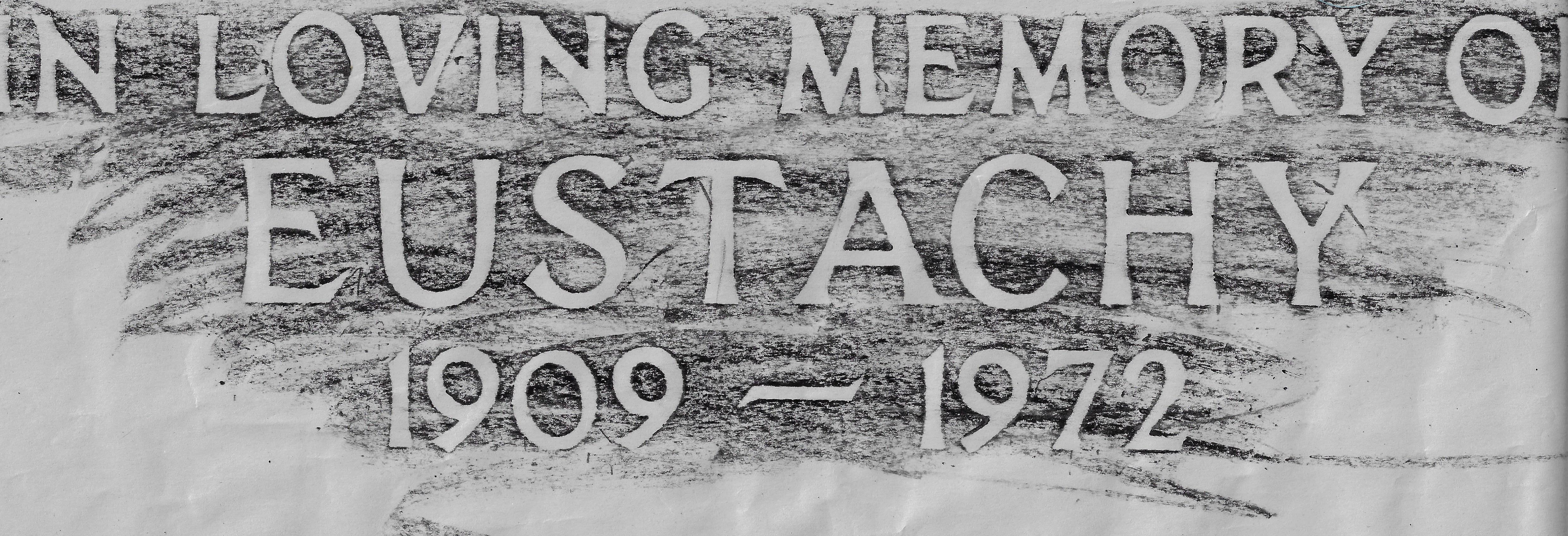
Font ID Home › Forums › Lettering and Font Identification › Font ID This topic has 2 replies, 2 voices, and was last updated 7 months ago by Sjunk. Viewing 3 posts - 1 through 3 (of 3 total) Author Posts November 25, 2021 at 10:30 am #4598 SjunkParticipant Any idea on this one? 1972 seems like it would of been hand cut. November 25, 2021 at 11:53 am #4599 MLCKeymaster Yes, this is definitely not a style that was available as a reproducible letter set at the time. It does appear fairly consistent, but looking closely there are some slight differences from letter to letter so it is almost certainly hand cut. Feel free to use the matching service if you would like help matching this inscription: https://www.monumentletteringcenter.com/product/cemetery-inscription-matching-service/ November 25, 2021 at 1:38 pm #4600 SjunkParticipant Thanks Author Posts Viewing 3 posts - 1 through 3 (of 3 total) You must be logged in to reply to this topic. Log In Username: Password: Keep me signed in Log In